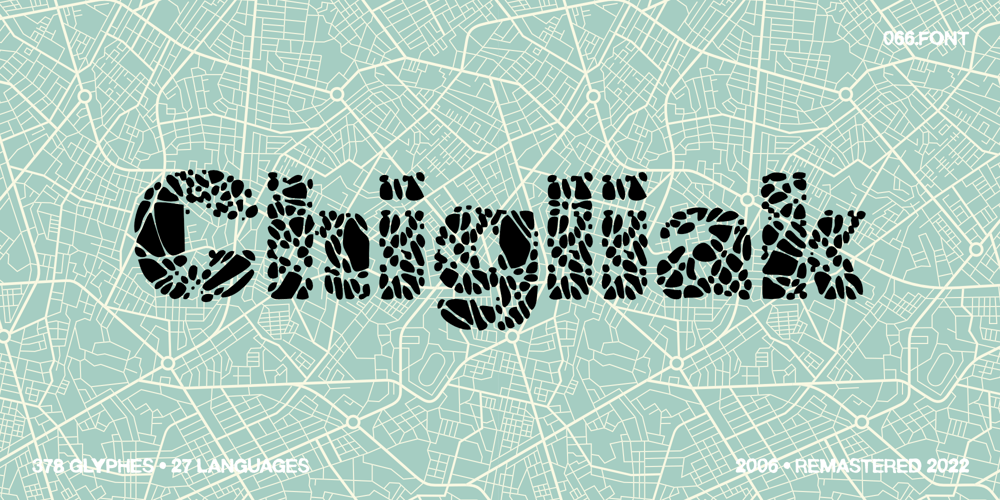
Chigliak Font Family was designed by Piotr Wozniak and published by 066.FONT. Chigliak contains 1 styles and family package options. Chigliak is a display font with a playful and extravagant style. With its daring and ornate letterforms, Chigliak attracts attention and adds a touch of nonchalance to any project. This font is perfect for creative projects such as posters, invitations or branding materials, where a lively and distinctive text finish that catches the eye is desirable. Remastered in 2022.